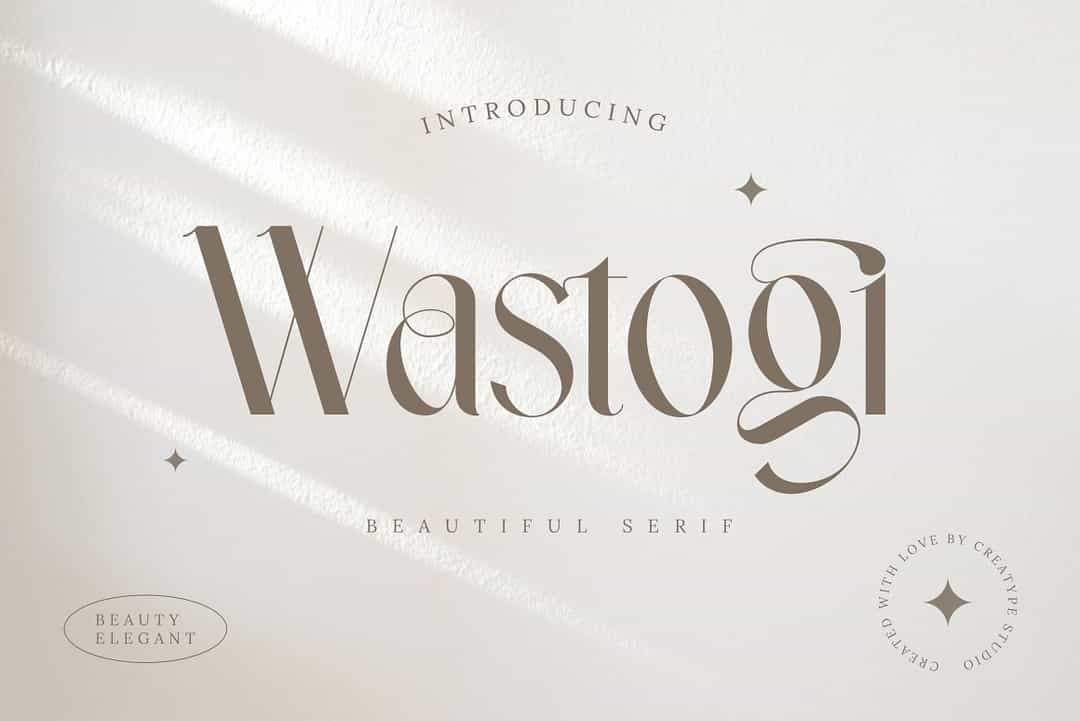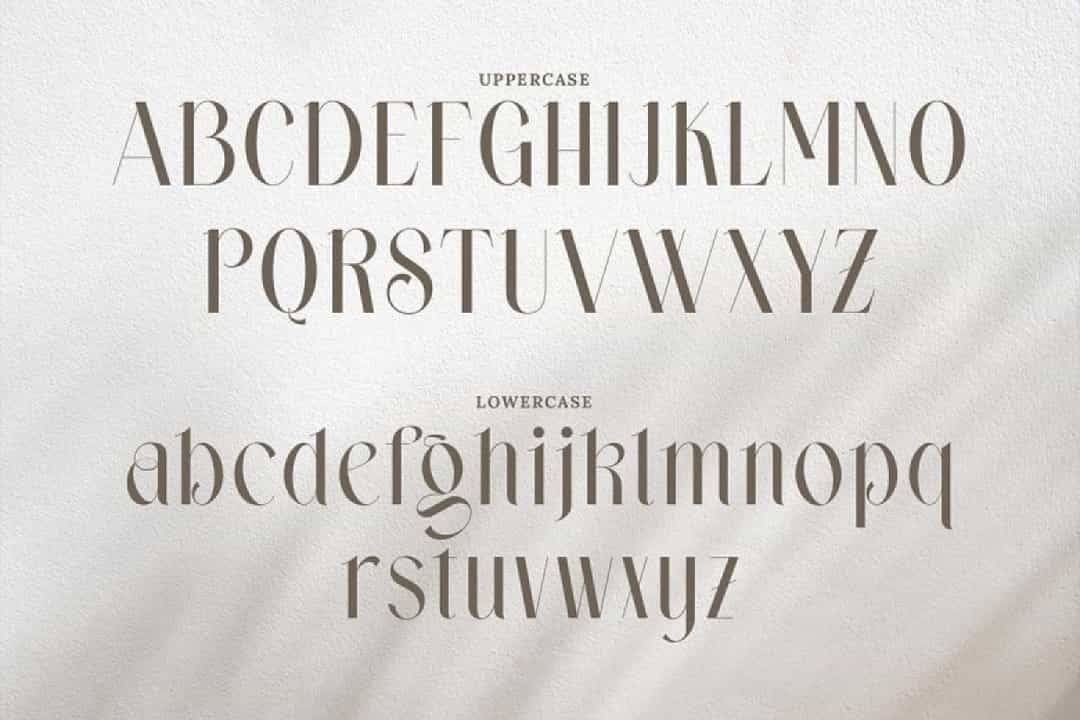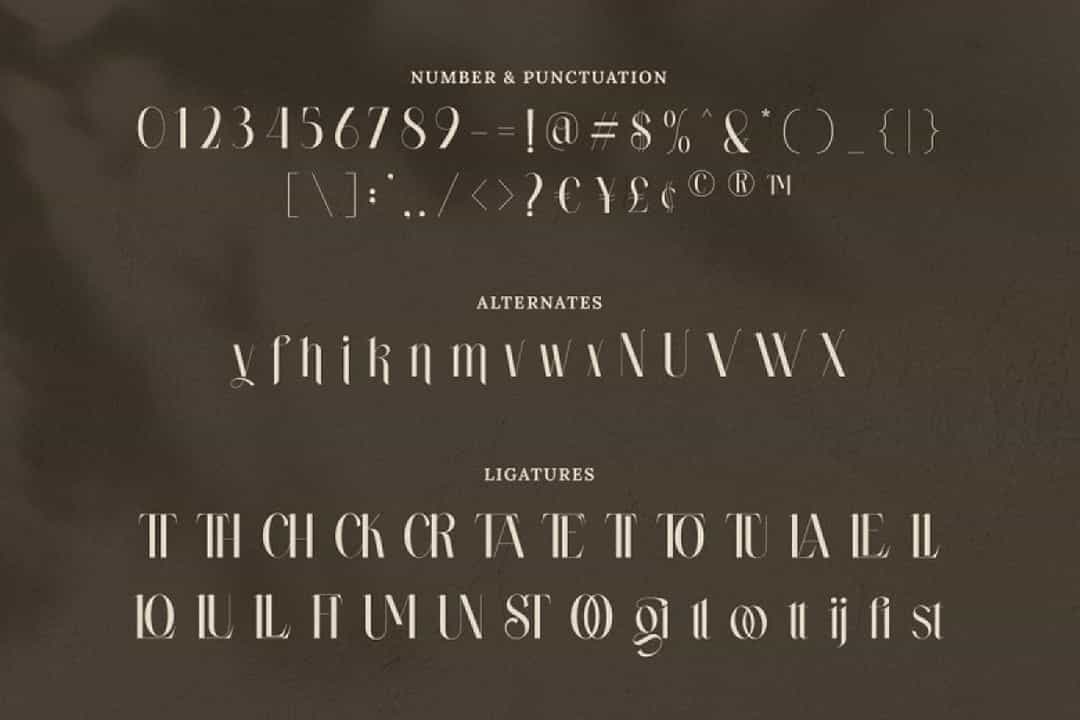
Discover Wastogi Font, part of the Serif collection—a versatile and unique font perfect for adding a personal touch to your projects. Download it for free and enjoy crafting designs with style, from invitations to social media posts. This font is available exclusively for personal use, giving you the freedom to create without limits. Unlock your creativity with Wastogi Font today!
Wastogi is an eye-catching serif typeface featuring unique details for an elegant and modern aesthetic. Perfect for logos, branding projects and wedding designs as well as advertisements, social media posts packaging for products, designs, labels photographs watermarks stationery invitations or any project requiring handwritten script, Wastogi lends itself well to handwritten projects like logos.